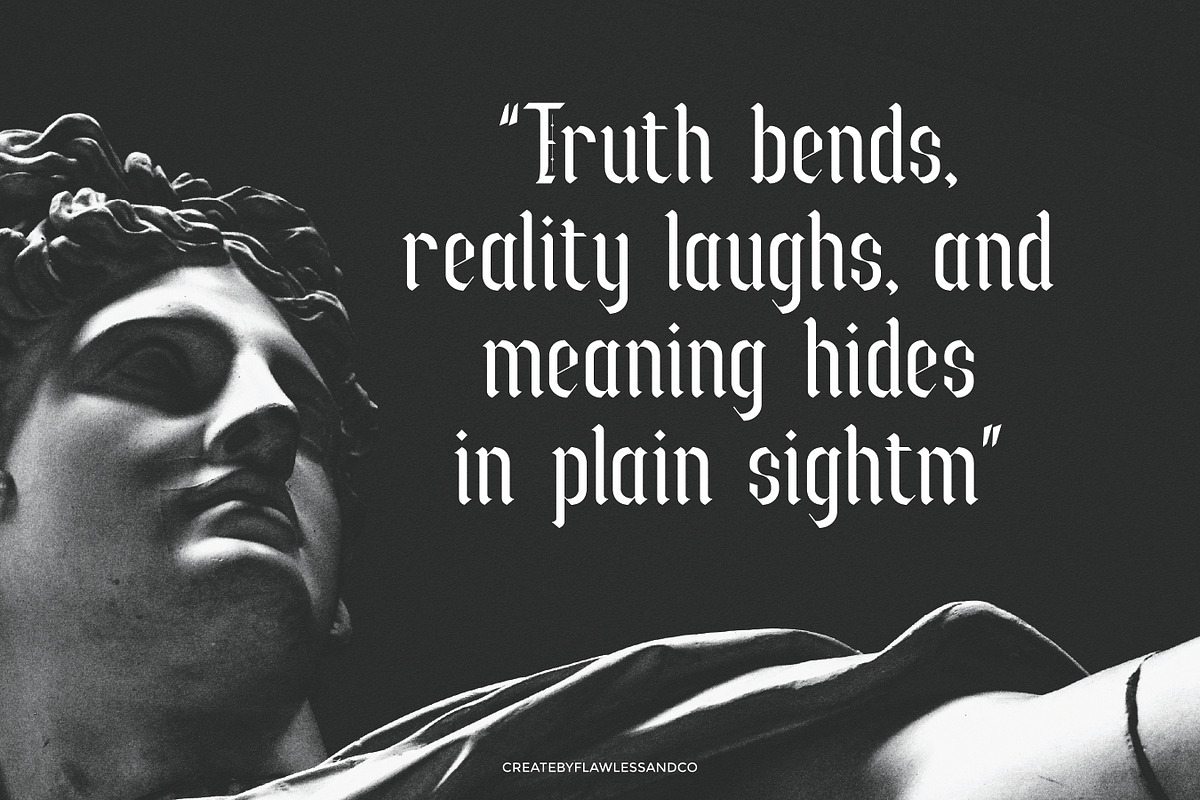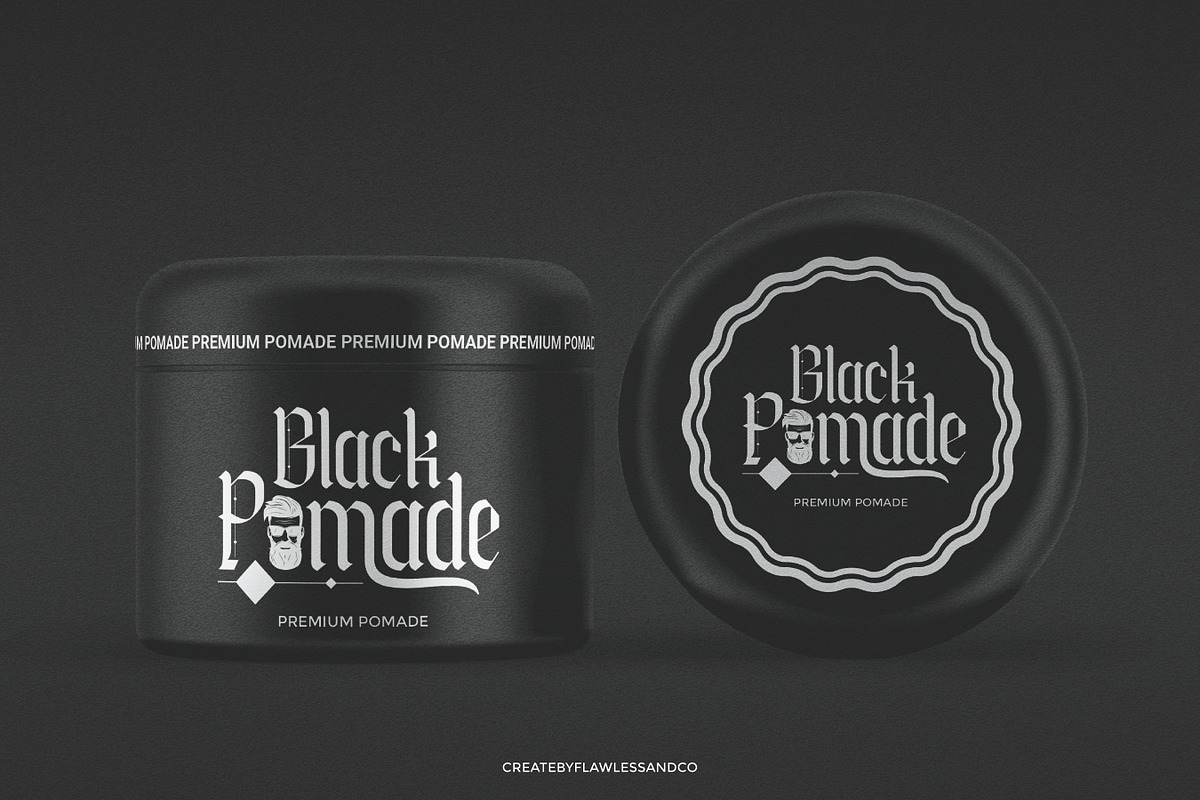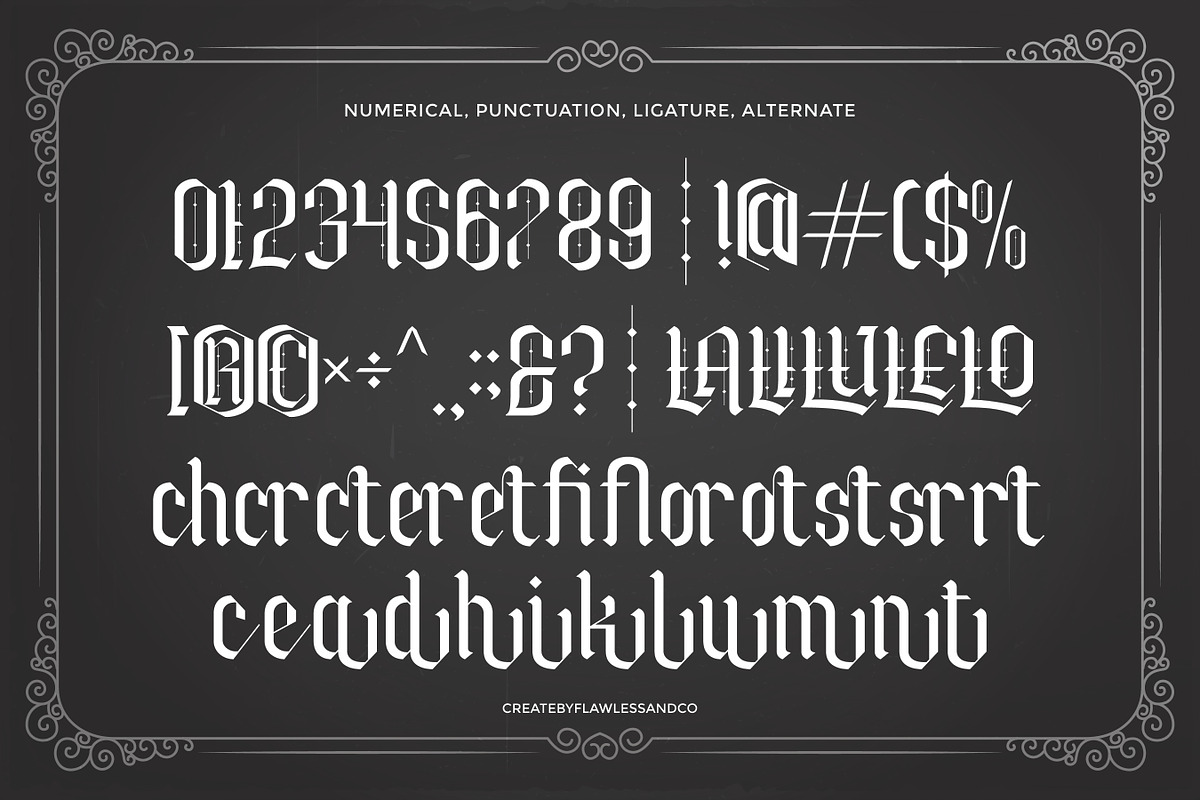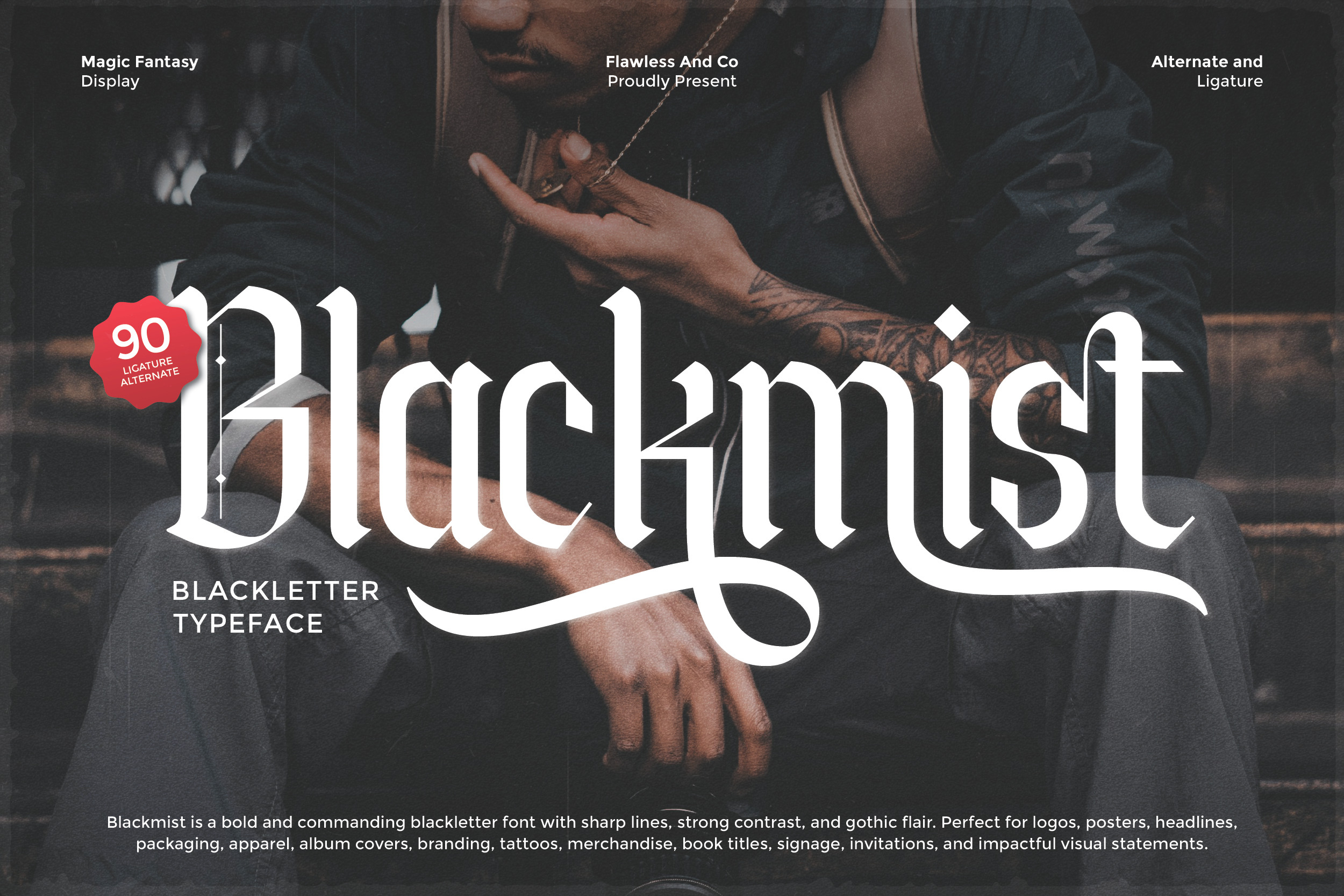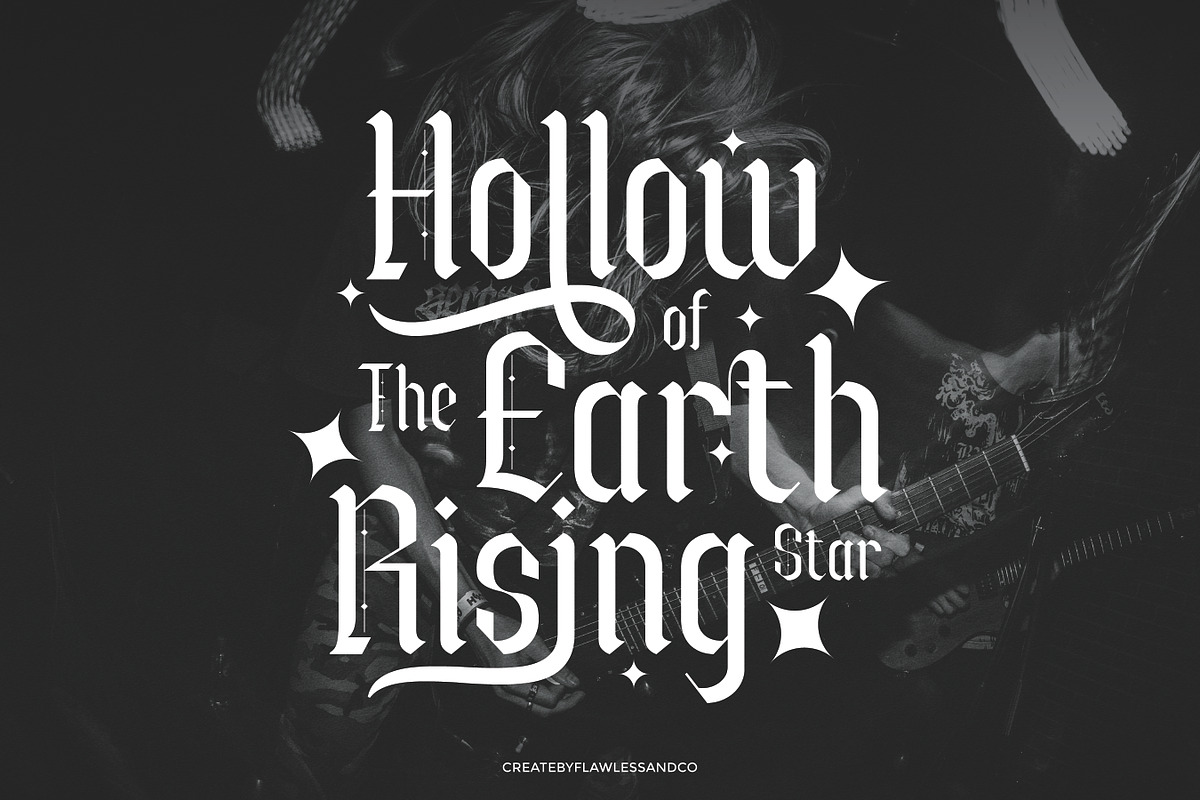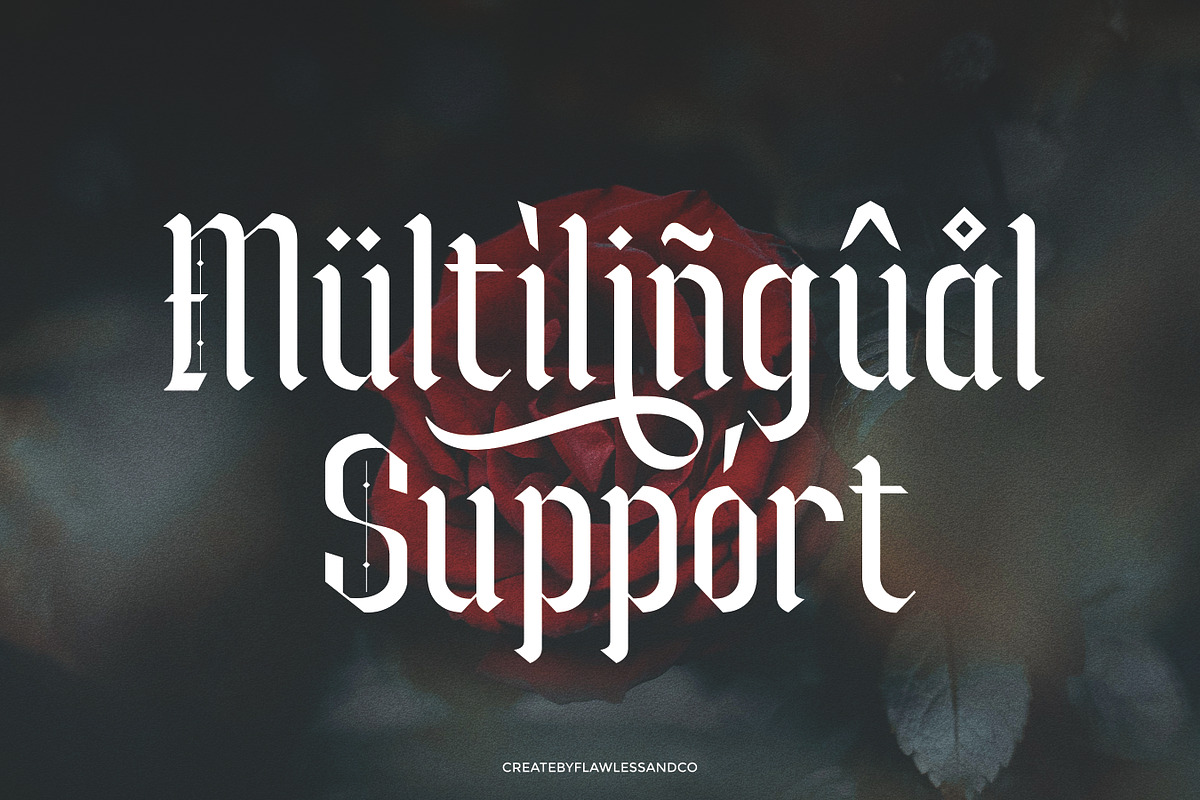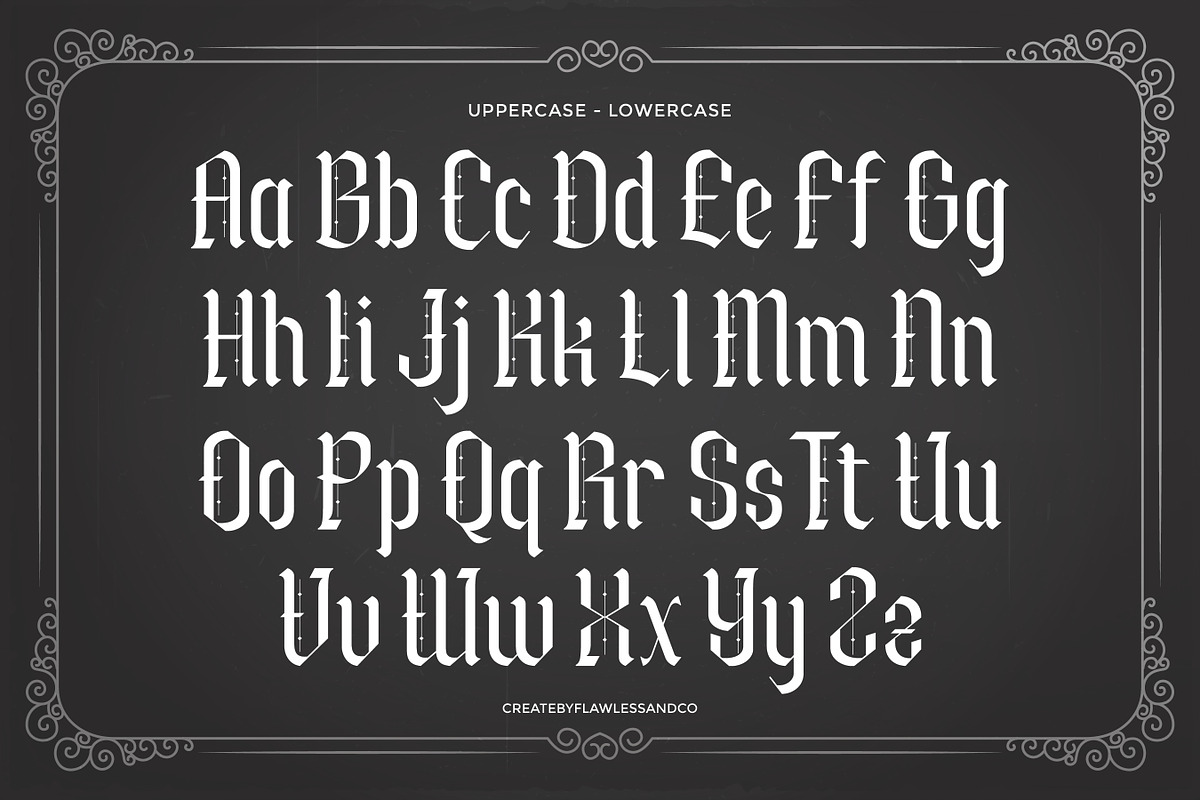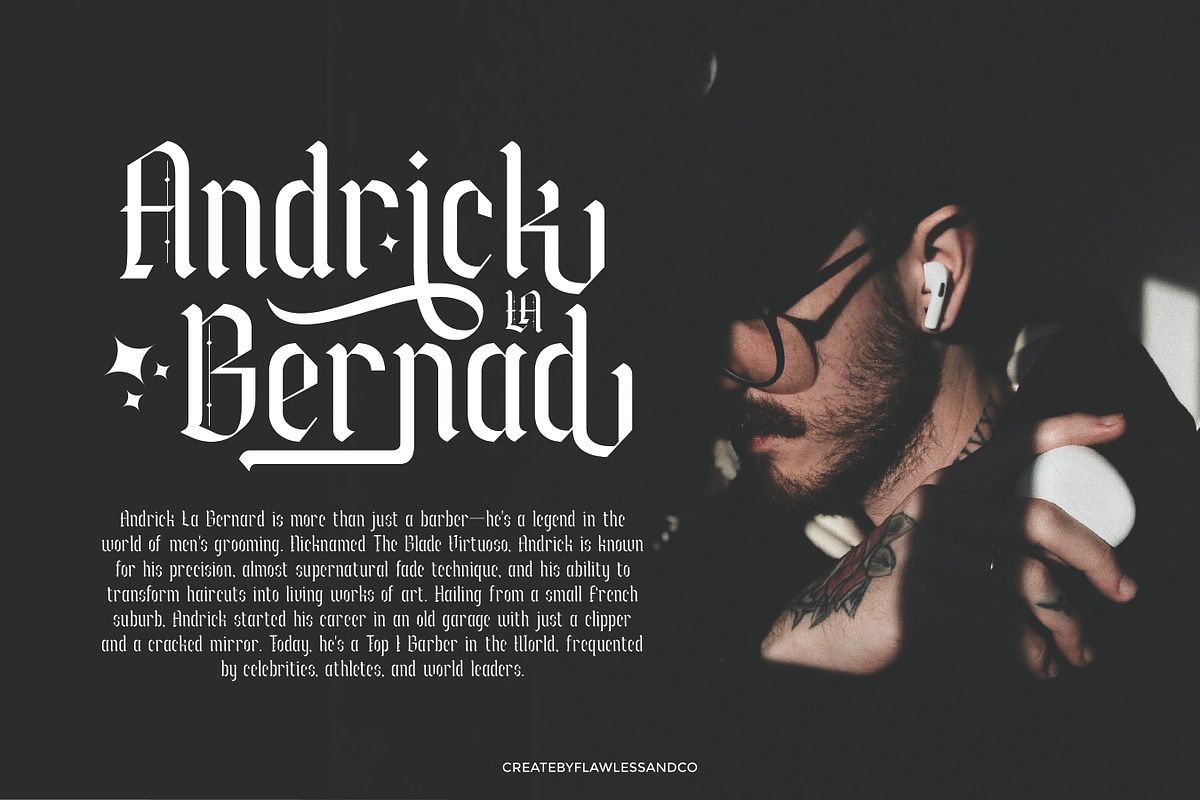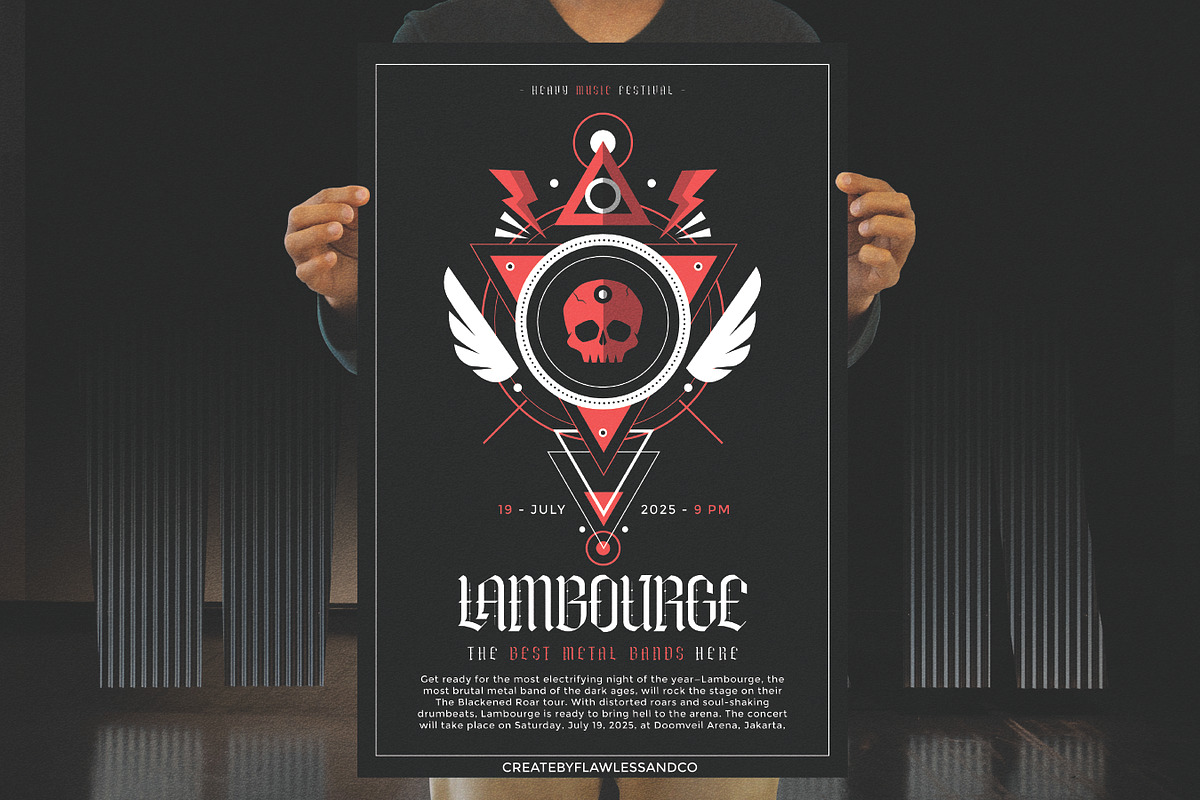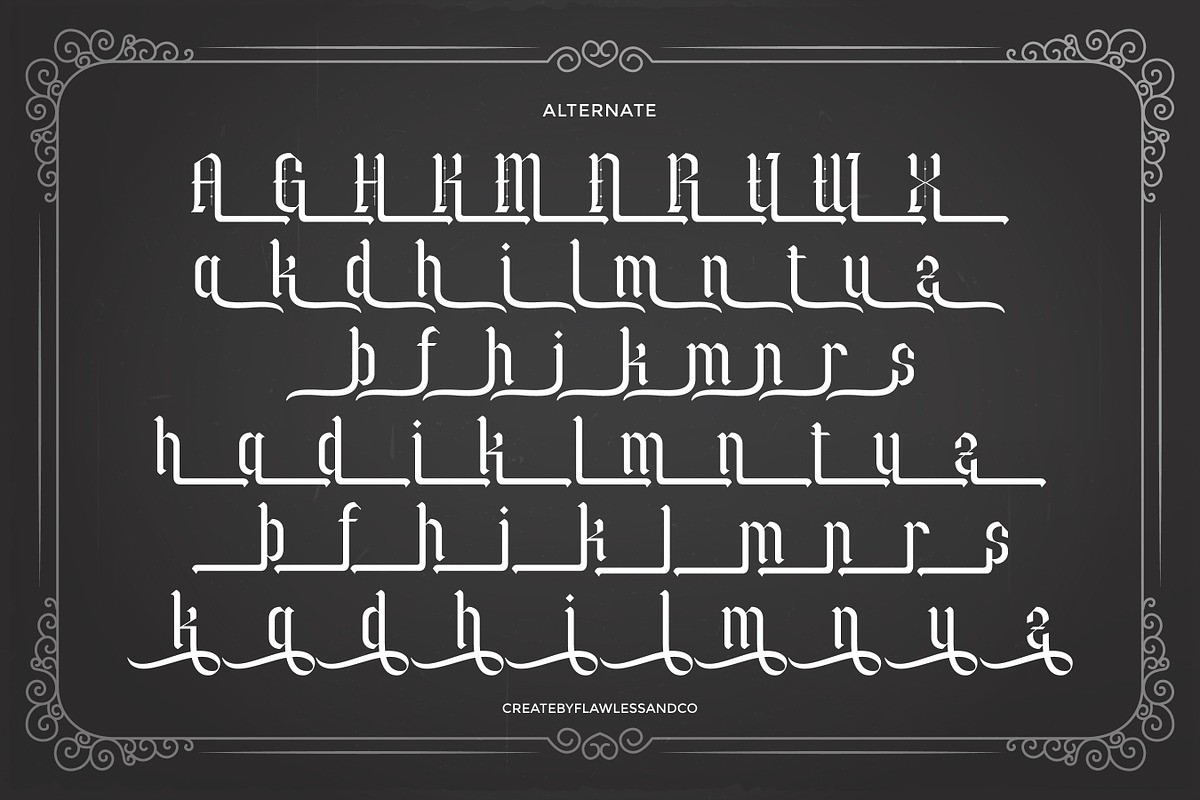
Blackmist - Blackletter Font
Blackmist - Blackletter Typeface Font
Blackmist is a bold and captivating blackletter typeface that combines sharp edges, strong contrasts, and a gothic-inspired aesthetic. With its commanding presence and intricate details, Blackmist is perfect for creating impactful visual designs that demand attention. Ideal for logos, branding, posters, headlines, apparel, album covers, packaging, merchandise, tattoos, book titles, invitations, signage, and statement designs, this typeface brings both elegance and power to any project. With its distinctive blackletter style, Blackmist is a must-have font for designers who want to infuse their work with boldness, sophistication, and timeless gothic flair.
Why Choose Blackmist for Your Creative Projects?
Blackmist isn’t just another typeface — it’s a bold statement. With its striking blackletter style, this font is designed to elevate your work and give it a powerful, timeless appeal.
- Bold Identity – Perfect for logos and branding that need to stand out with authority and character.
- Timeless Gothic Elegance – Adds a sense of tradition, artistry, and sophistication to your designs.
- Versatile Use – Works beautifully on posters, apparel, packaging, tattoos, music covers, and more.
- Attention-Grabbing Style – Instantly creates a dramatic and memorable impression.
Whether you’re a designer, brand creator, or artist, Blackmist gives your projects the unique edge they deserve.
A Must-Have Font for Brand and Logo Creators and Designers
Blackmist is the ultimate choice for creatives who want their work to stand out with strength and style. Its bold blackletter form makes it a perfect tool for crafting powerful brand identities, logos, and design statements that leave a lasting impression.
Why Choose Blackmist for Brand and Logo Projects?
Blackmist combines the boldness of traditional blackletter with a modern edge, making it an ideal font for projects that demand authority, uniqueness, and style. Its strong letterforms bring instant impact to logos, branding, and creative visuals, ensuring your design stands out in any industry. Whether you’re building a powerful brand identity, designing standout packaging, or creating eye-catching posters, Blackmist delivers a balance of elegance and strength that captures attention.